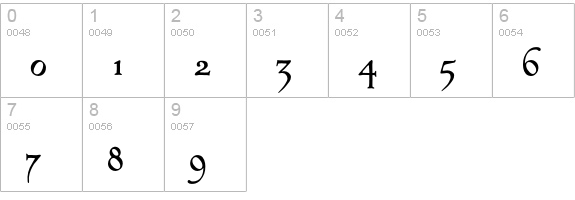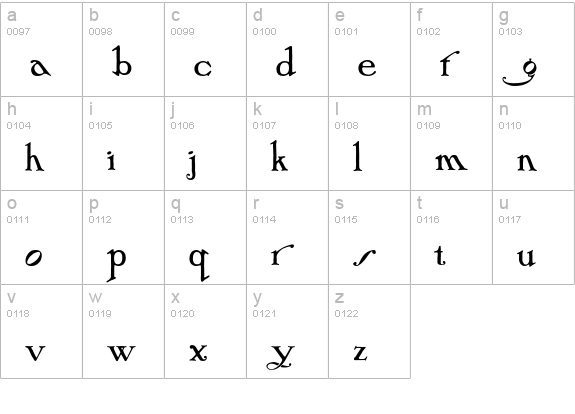
P22ArtsAndCrafts-Hunter is a unique and meticulously crafted font that perfectly captures the essence of the Arts and Crafts movement. Inspired by the handcrafted beauty of the early 20th century, this font combines the elegance of calligraphy with the rustic charm of handmade lettering. Every stroke in P22ArtsAndCrafts-Hunter is carefully designed to evoke a sense of craftsmanship and authenticity. The uneven lines and imperfect curves give the font a warm and inviting feel, as if it were created with love and dedication by a skilled artisan. With its versatile and timeless design, P22ArtsAndCrafts-Hunter is suitable for a wide range of projects. Whether you're designing invitations, posters, logos, or any other creative endeavor, this font will add a touch of artistic flair and sophistication. And the best part? P22ArtsAndCrafts-Hunter is available for free! That's right, you can download this exceptional font without spending a penny. Simply head over to FontsMarket.com and start exploring the world of Arts and Crafts typography. So why wait? Enhance your designs with the beauty and charm of P22ArtsAndCrafts-Hunter. Download it for free today and let your creativity soar!